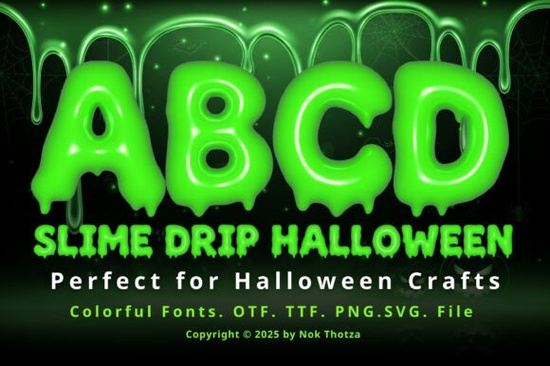
Why choose a 3D dripping font for Halloween designs?
A flat font can feel flat for a holiday that relies on texture and atmosphere. The gooey slime effect in this font adds depth the letters look like they're melting or oozing, which immediately signals "Halloween" without needing extra illustrations. The glowing outline also helps the text pop against dark backgrounds, a common choice for Halloween posters and banners. Designers often pair it with a patriotic font set for contrasting seasonal projects, but for October, this dripping style is hard to beat.How can you use Slime Drip Halloween Font in real projects?
Because the font already has a built-in 3D and slime effect, you can use it straight out of the box without layering multiple effects in your software. Here are practical ways to put it to use:- Party invitations & flyers – The dripping letters give an instant Halloween mood, ideal for kids' parties or adult costume gatherings.
- Product packaging – If you sell limited-edition Halloween treats or spooky merch, this font on the label makes the package shelf-ready.
- Social media graphics – Use it for Instagram stories, Facebook event banners, or Pinterest pins. The glowing effect catches the eye in feeds.
- DIY crafts & home decor – Print the letters for wall art, cupcake toppers, or treat bag tags. The bold shape cuts easily with a craft knife or Cricut.
- Print-on-demand products – T-shirts, hoodies, mugs, and tote bags benefit from a single-word design using this font. The 3D look translates well to garment printing.
Is this font easy to work with for print-on-demand sellers?
Many Halloween fonts go for a scratched, horror-movie look or a gothic serif. This one takes a more playful route it's creepy but not terrifying. The green slime and bright glow make it suitable for family-friendly events and younger audiences. The 3D effect is already rendered, so you get consistent results across all characters. For designers who want variety, this font complements a colorful font collection where you can mix and match with other seasonal styles.Quick checklist before you download
To get the most out of this font, keep these points in mind:
- Choose a dark background (black, deep purple, or dark green) to make the glow visible.
- Use all-caps for maximum impact the lowercase has a similar dripping effect but the uppercase is more readable at small sizes.
- Test the font on colored paper or fabric before final production; the glowing effect is designed for screens but prints well on dark surfaces.
- Pair it with a simple sans-serif font for secondary text so the design doesn't get too busy.